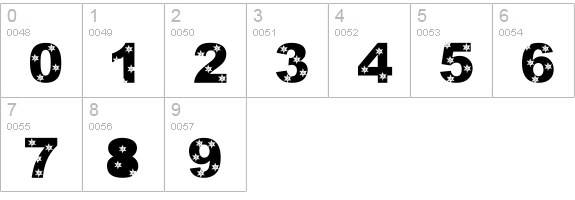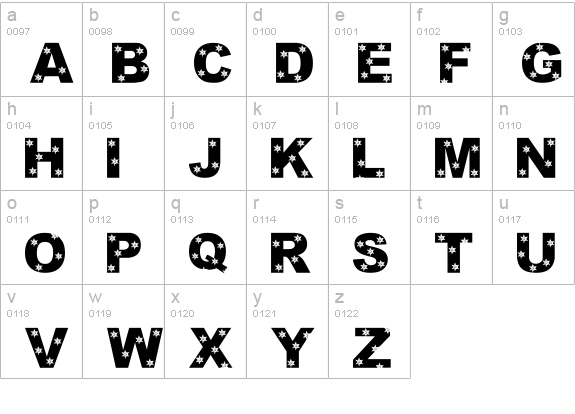
LMS Let It Snow Font Details
Introducing LMS Let It Snow, a whimsical and captivating font that brings the enchantment of a winter wonderland right to your fingertips. With its unique and playful design, this font is the perfect choice for adding a touch of magic to your projects. LMS Let It Snow is a free font that effortlessly captures the essence of a snowy landscape, with each letter resembling delicate snowflakes gently falling from the sky. Its intricate details and intricate curves make it a standout choice for any design that aims to evoke a sense of wonder and joy. Whether you're working on holiday greeting cards, winter-themed posters, or even crafting a cozy logo for a seasonal event, LMS Let It Snow will instantly transport your audience to a world of frosty beauty. Its versatility allows it to be used in a variety of contexts, from elegant and sophisticated to lighthearted and cheerful. One of the best parts about LMS Let It Snow is that it is freely available to download at FontsMarket.com. This means that you can easily access this captivating font and start incorporating its charm into your creations without any hesitation. Its availability for free ensures that everyone can enjoy the beauty and magic of LMS Let It Snow, regardless of their budget. So, why wait? Download LMS Let It Snow now and let your imagination run wild as you create stunning designs that will leave a lasting impression. Embrace the winter spirit and let this delightful font breathe life into your projects. Get ready to spread joy, warmth, and a touch of frosty wonder with LMS Let It Snow.